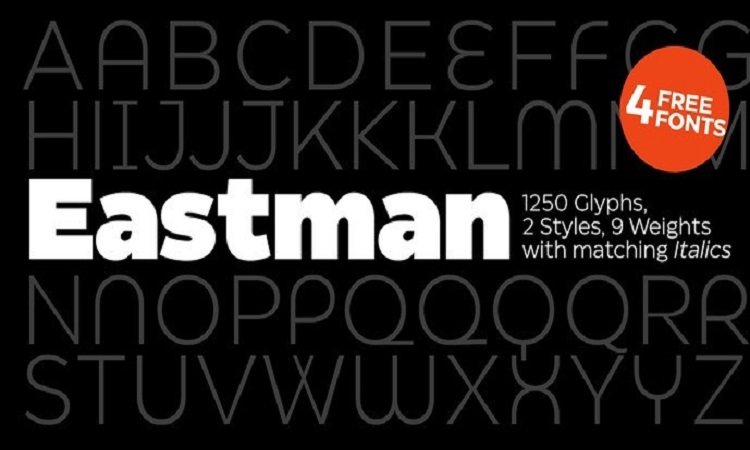
Eastman Sans Serif Font
Eastman Font is a fresh Sans-Serif typeface designed with simplicity in mind. Strong capitals and a smooth, open lowercase are effective in a variety of applications.
Be it for web or print media, this font will give more focus on your content presentation in a beautiful way.